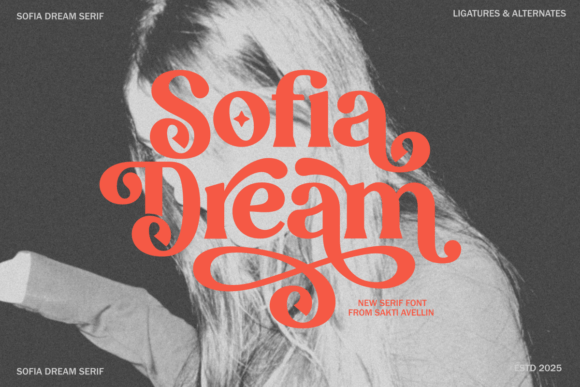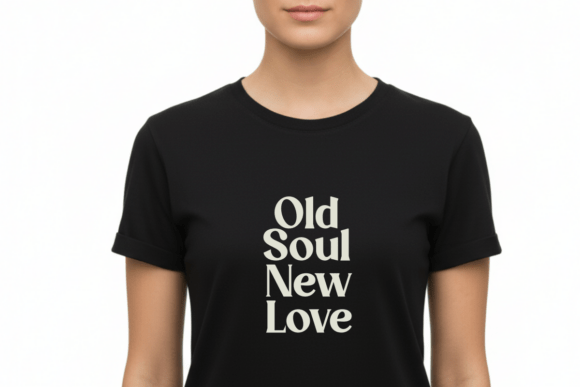
Sofia Dream Font
Introducing the Sofia Dream, a vintage serif typeface that effortlessly sparkles with charm, elegance, and a delightful dash of 70s flair. It’s a tastefully designed typeface boasting graceful curves and soft, rounded edges, ideal for instilling a wave of bold femininity in your designs. This font shines in its versatility, with extra alternates and subtle ligatures that enhance its visual appeal. Be it inspiring quotes, eye-catching product packaging, social media posts, dynamic posters, chic apparel designs, eclectic tote bag prints, engaging mug designs, impactful headlines, captivating book covers or hypnotic wall art, Sofia Dream is the font that adds the magic touch you’ve been looking for.